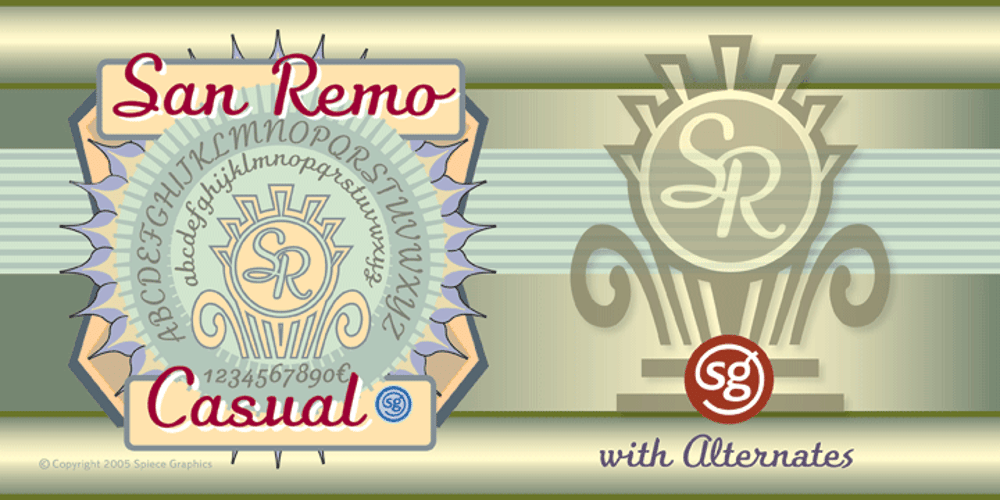
San Remo Casual SG
San Remo Casual SG font
San Remo Casual SG Font Family was designed by Jim Spiece and published by Spiece Graphics. San Remo Casual SG contains 1 styles and family package options. Now is a great time to dust off your old motor scooter and take a ride along the Italian Riviera. Let’s head to the flower city of San Remo, Italy – the namesake for this versatile, 1950s style script. Try San Remo on your next brochure or flyer project. You may want to consider using it to create a special logo or icon for your personal stationery. It’s perfect for any job that requires linked or connected letters. And for your convenience, this dashing design sports a variety of alternate characters plus lining and old style figures. San Remo Casual is also available as an OpenType font. It contains lining and oldstyle figures, prebuilt fractions, stylistic alternates, and a wide assortment of f-ligatures, plus more. These advanced features currently work in Adobe Creative Suite InDesign and Illustrator. Check for OpenType advanced feature support in other applications as it gradually becomes available with upgrades. Ciao!